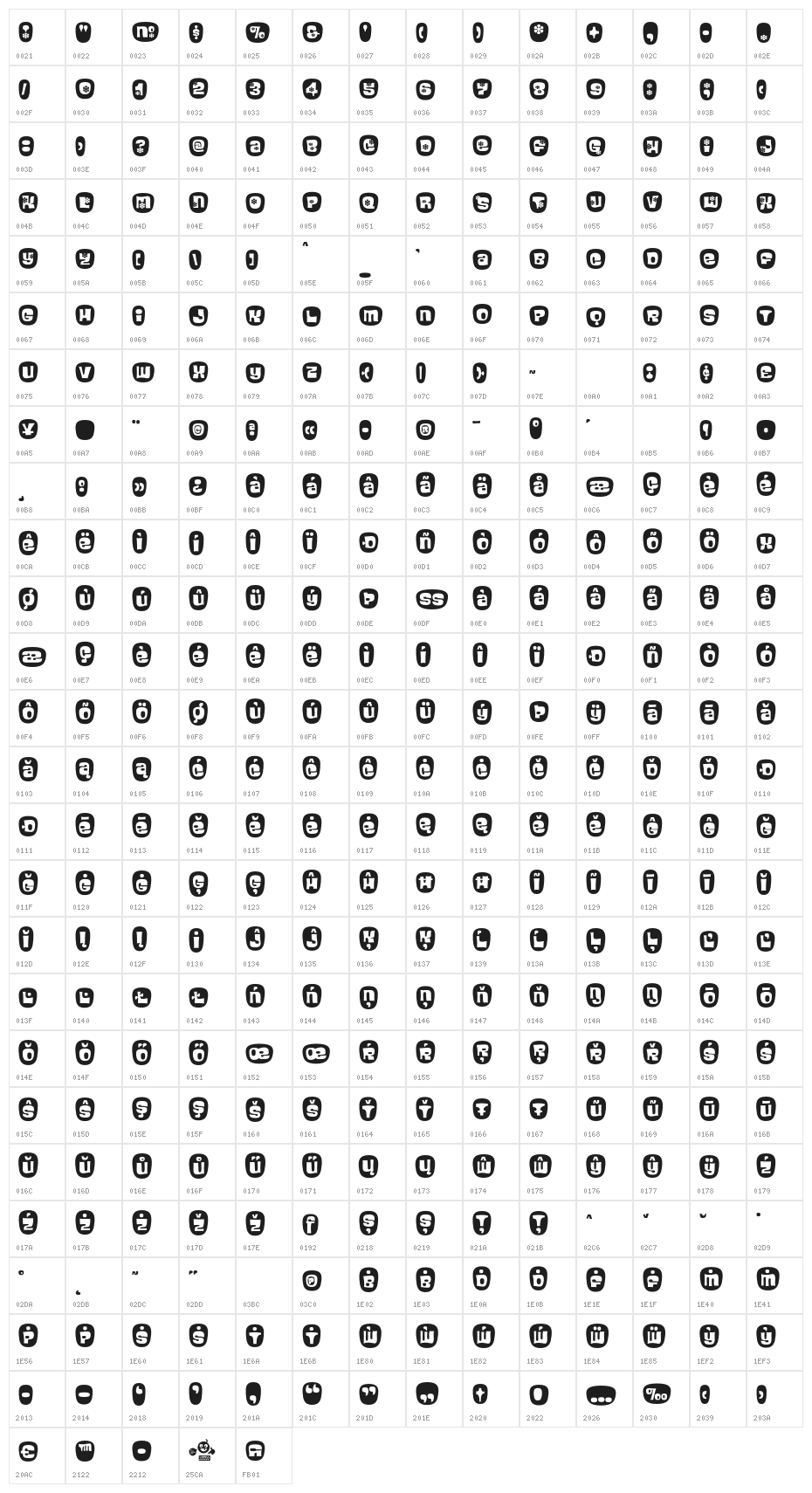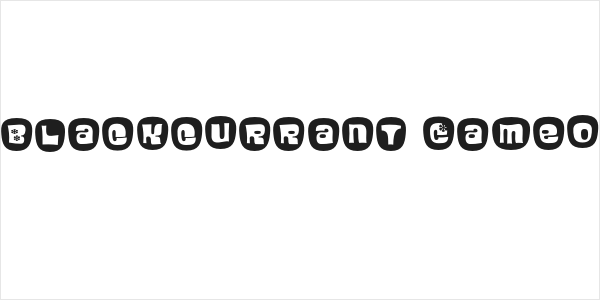
Blackcurrant Cameo Font
Blackcurrant Cameo Description
This playful and decorative font features bold, rounded characters encased in black, pill-shaped backgrounds. Each letter and number is adorned with whimsical floral motifs, adding a touch of charm and creativity. The characters are evenly spaced, providing a balanced appearance despite their unique embellishments. This font's distinct style makes it ideal for projects that require a fun and eye-catching design. The consistent use of floral elements throughout the character set enhances its cohesive and thematic appeal.